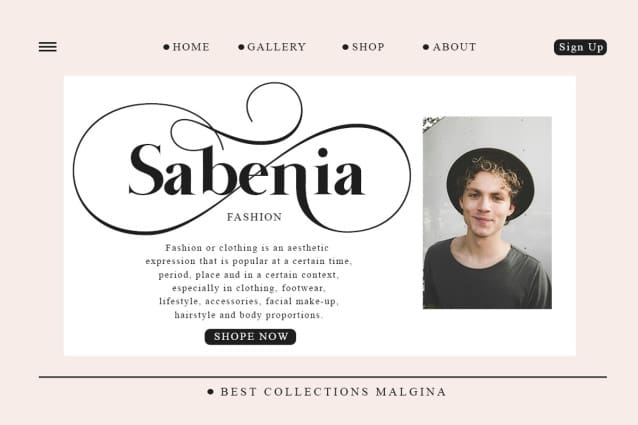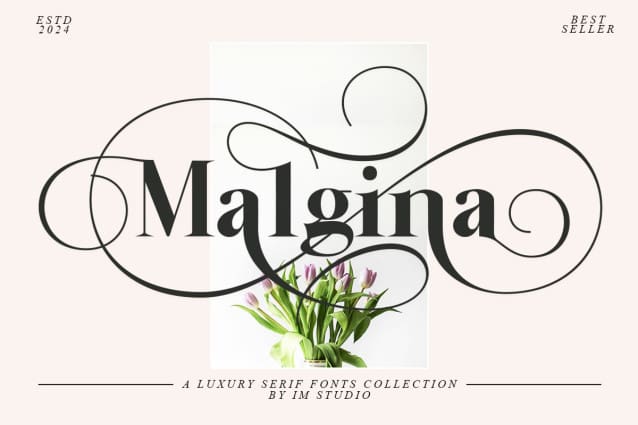
Malgina Font
Malgina Font is a new editorial serif that is all about clean, soft lines, tight curves and a trendy, elegant look!
Malgina is a Serif font that is equipped with a very stunning alternate style, very suitable for your design needs, such as being very suitable for creating nostalgic but still clean and elegant designs such as headlines, magazines, logos, packaging, editorials, and so on.